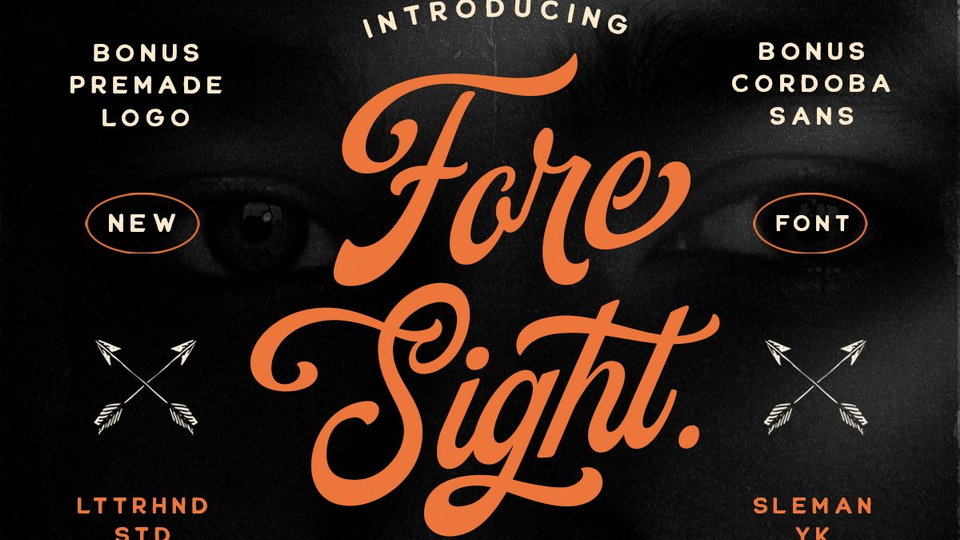
Foresight Font
Foresight is a vintage script font, crafted to give your headlines and logotype projects a retro touch. This font reads as strong, confident, and dynamic.